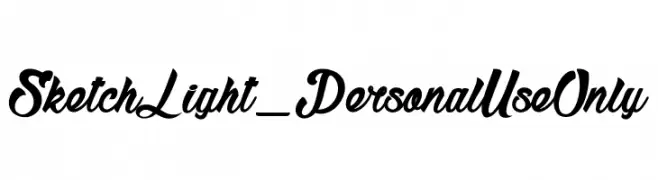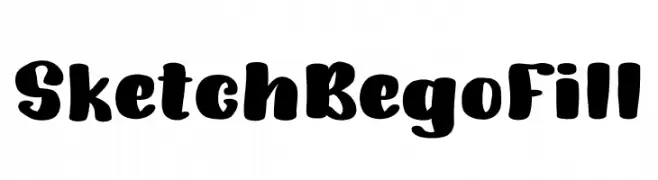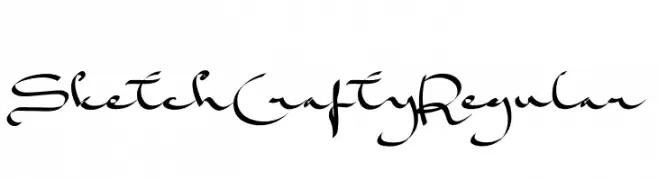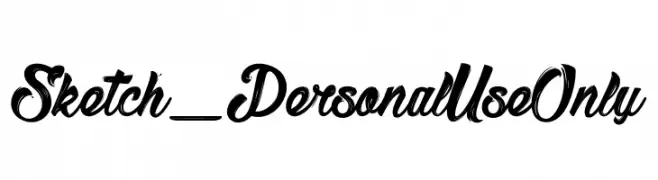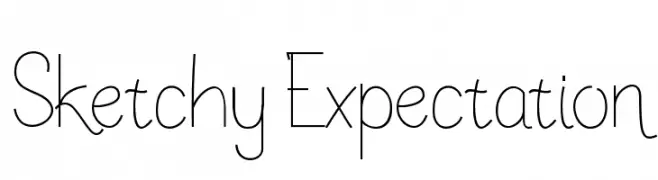
A bold, brush-style font with dynamic and expressive strokes.
An elegant, flowing script font with a hand-drawn quality.
A whimsical, hand-drawn font with tall, slender characters and playful loops.
A bold, brush-style script font with dynamic strokes and elegant curves.
A dynamic and flowing script font with elegant cursive letterforms.
A playful, hand-drawn font with a casual and friendly vibe.
A playful, hand-drawn font with rounded edges and consistent stroke width.
A bold, playful font with rounded edges and a hand-drawn look.
A bold, playful font with rounded, hand-drawn characters.
A playful, handwritten font with a casual and friendly vibe.